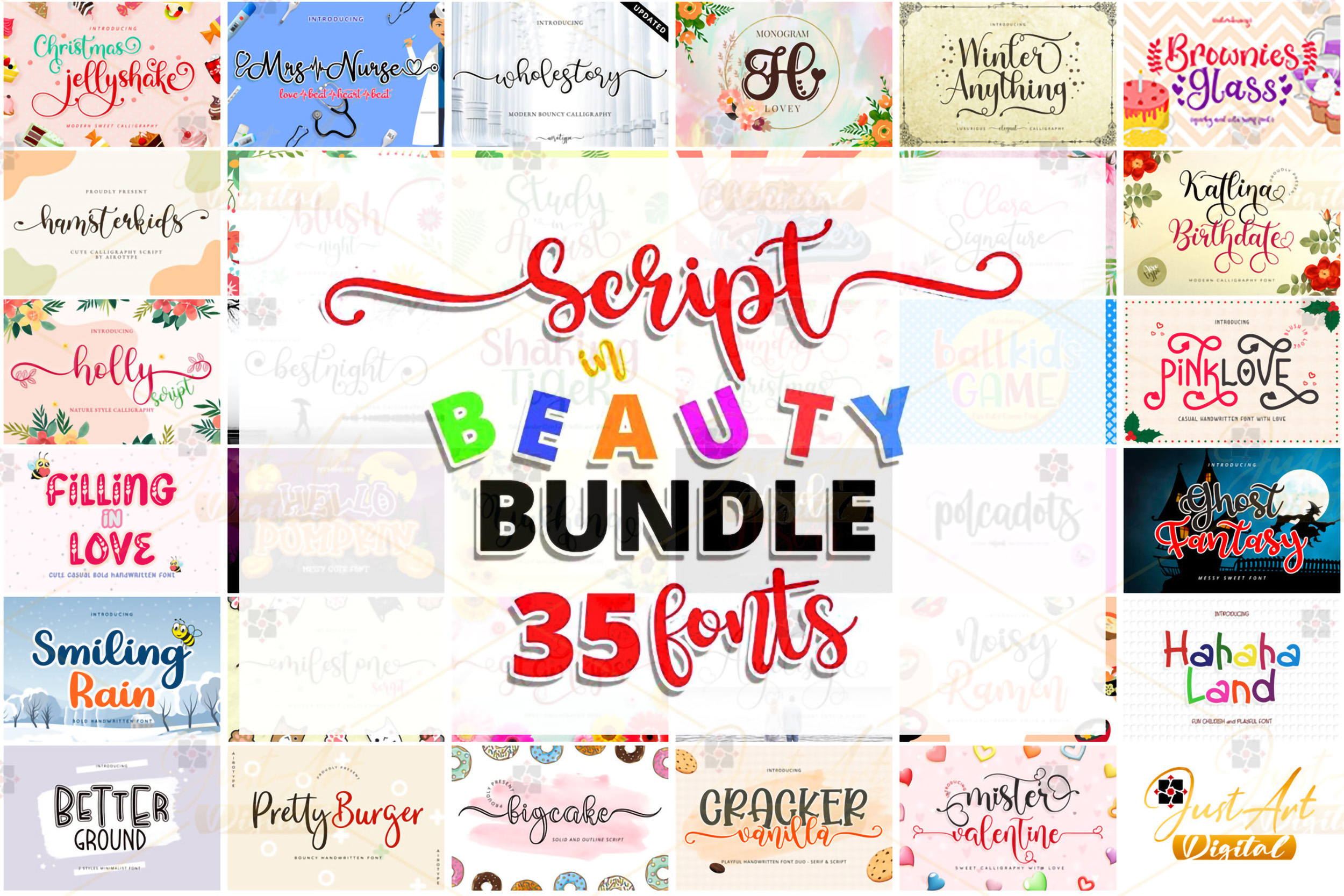
Scripte in Beauty Font Bundle
"Script in Beauty Font Bundle: A Collection of Stylish Script Fonts
★ Overview of the Bundle
The Script in Beauty Font Bundle is a premium collection of 35 high-quality fonts, meticulously designed to bring charm and versatility to your creative projects. With an extensive variety of script styles, this bundle caters to every design need, making it an indispensable addition to your font library.
▲ Key Features:
Diverse Script Styles: From retro and quirky to playful and elegant, this bundle features a wide range of script fonts to suit any aesthetic.
High-Quality Design: Each font is crafted with precision to ensure a seamless user experience.
Versatility: Ideal for digital and print projects, including branding, invitations, social media graphics, and more.
☆ Exploring the Font Styles
◆ Retro Fonts
Bring a nostalgic vibe to your designs with these retro-inspired fonts, perfect for vintage-themed projects.
▶ Quirky Fonts
Add a touch of uniqueness with quirky fonts that stand out and make your designs memorable.
● Playful Fonts
Inject fun and energy into your creations with these vibrant, playful fonts.
□ Elegant Fonts
For projects requiring sophistication and grace, these elegant fonts deliver timeless beauty.